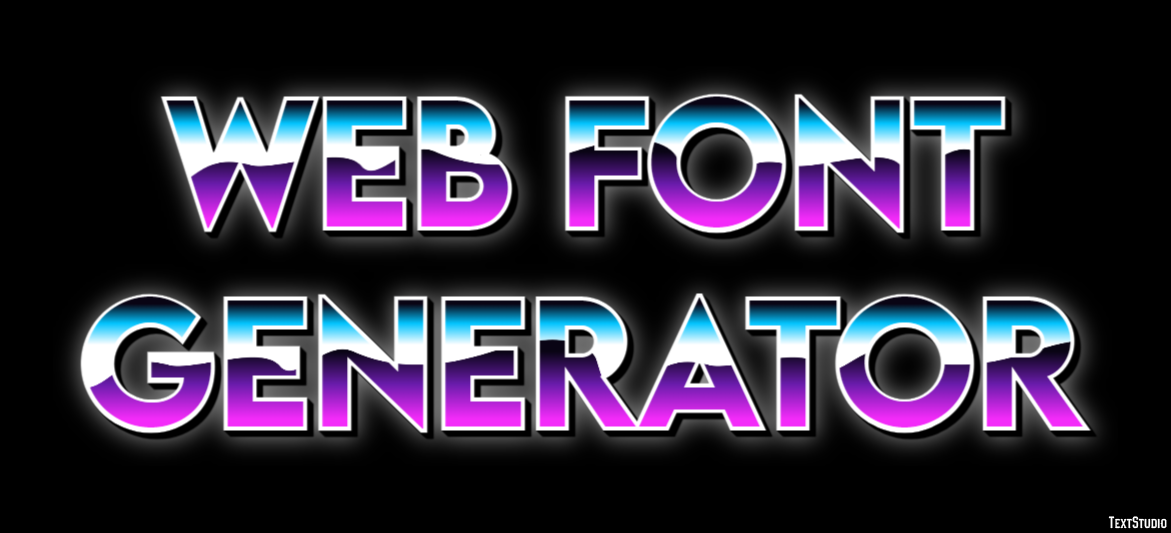
Arcade Text effect
Web Font Generator Text Effect
Font effect designs Web Font Generator.
Transform your text into captivating works of art with our cutting-edge font style text effect generator. Explore a vast collection of arcade-inspired fonts, reminiscent of the iconic 80s retro and retrowave era. Unleash your creativity and add a touch of purple arcade magic to your designs.